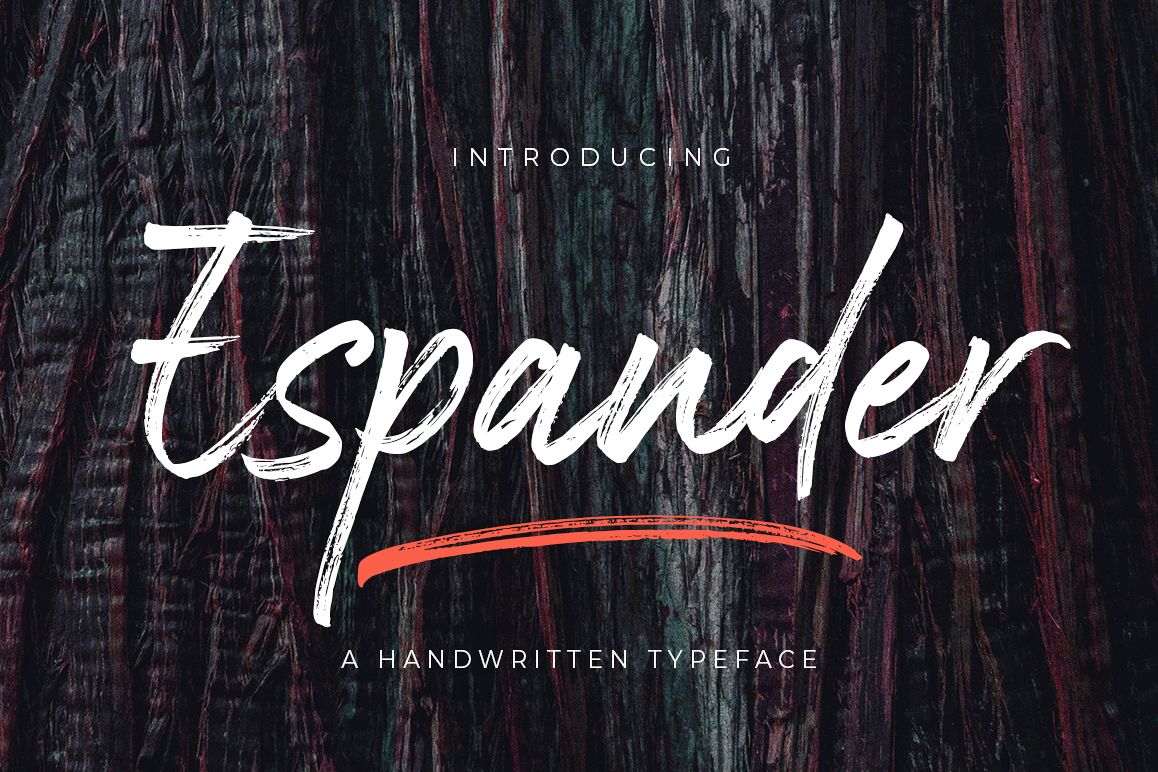
Espander - Handwritten Typeface
Espander Swash
Espander Italic
Espander Regular
Espander is a rough brush script font with a clear style and
dramatic movement this font is great for your next creative project such as
logos, printed quotes, invitations, cards, product packaging, headers,
Logotype, Letterhead, Poster, Apparel Design, Label, and etc.
Espander has two Espander Regular and Espander Italic
letters, complete with uppercase and lowercase letters, as well as
multi-language support, numbers, punctuation. also provide some ligatures and
extra swash.